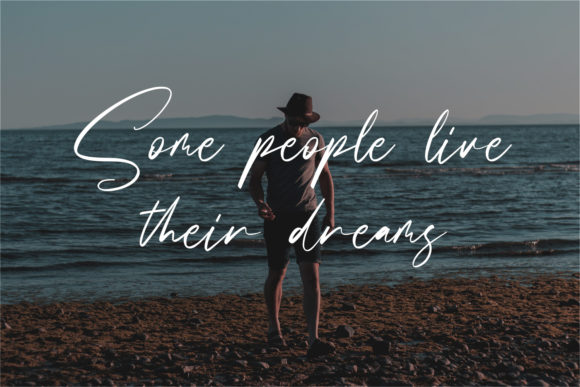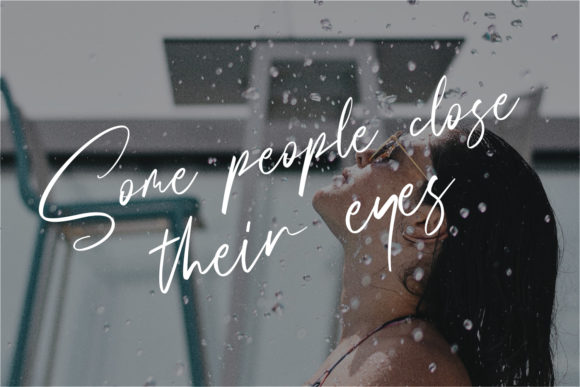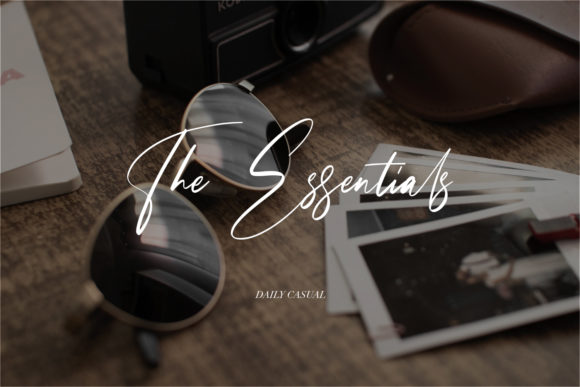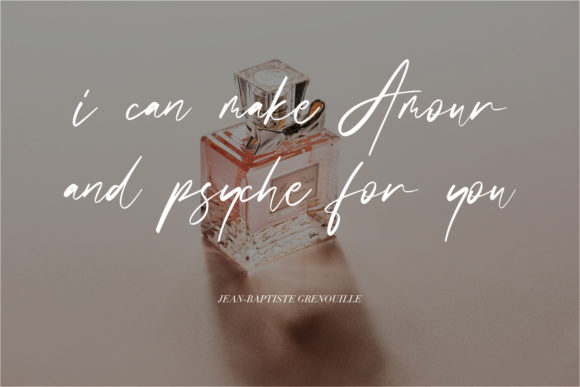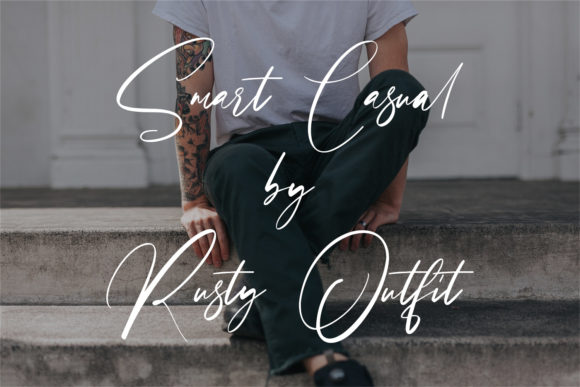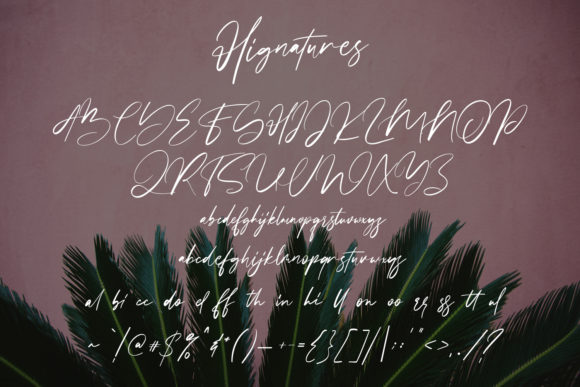
Introduction to Hignatures Font
Hignatures is inspired by classic typography and brings its own unique style to any design project.
Whether youโ€™re looking for fonts for Instagram or calligraphy scripts for DIY projects, this handwritten font will turn any creative idea into a true piece of art .
Key Features of Hignatures Font